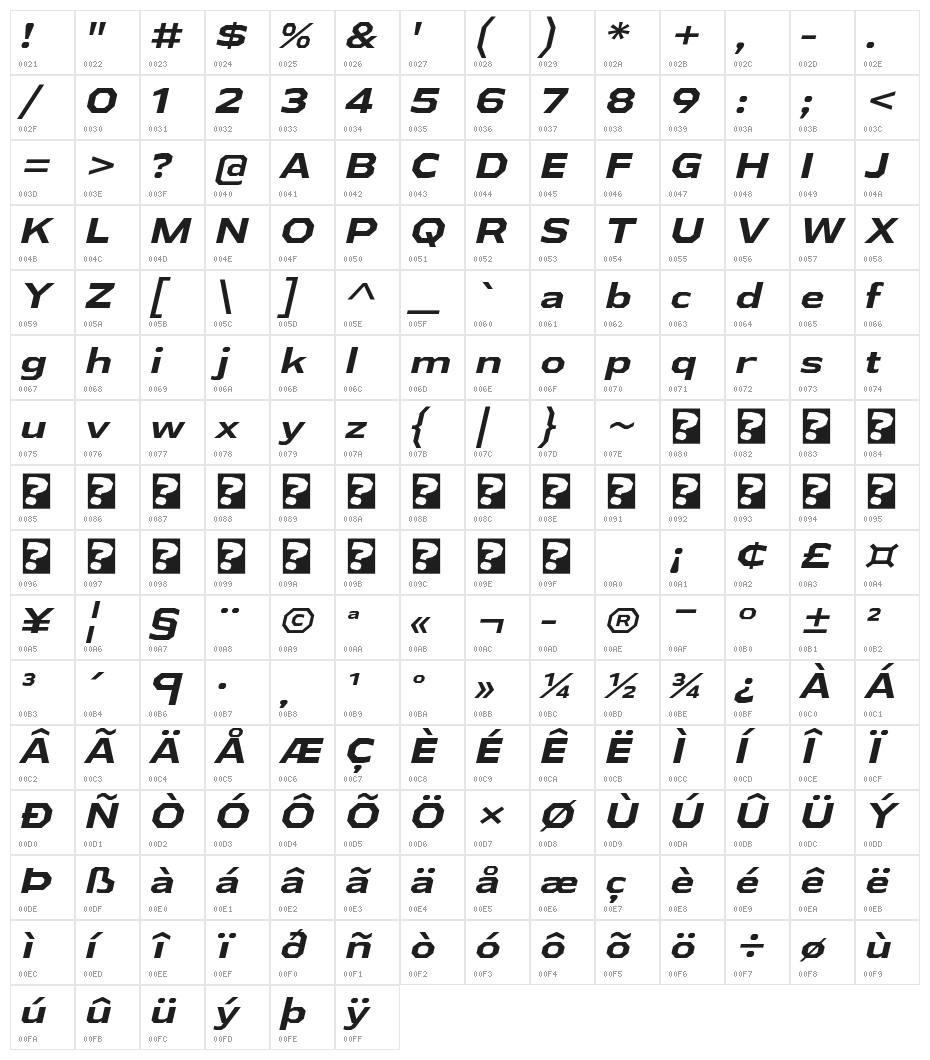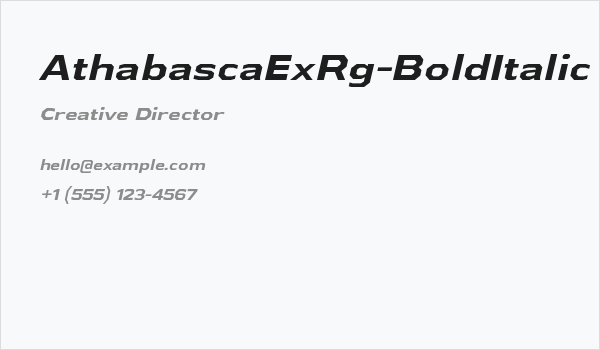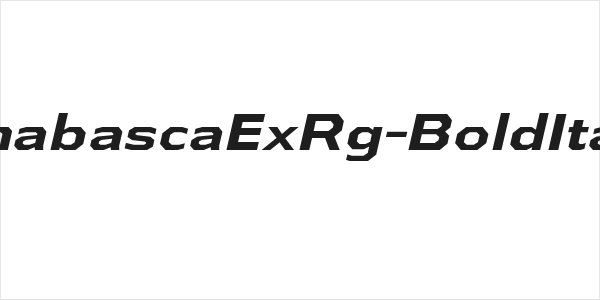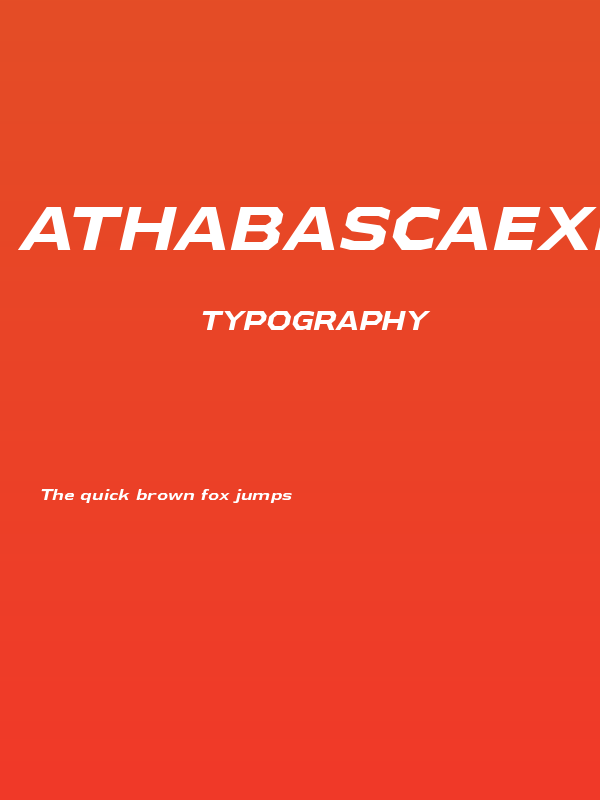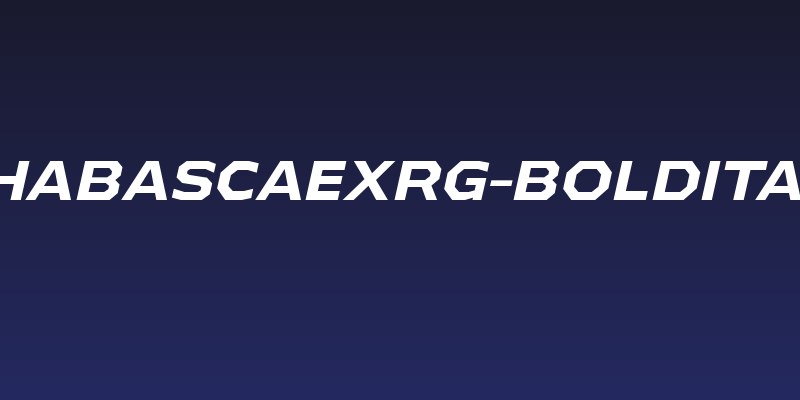
AthabascaExRg-BoldItalic Font
AthabascaExRg-BoldItalic Description
This font features a bold and italicized style with a modern and dynamic appearance. The characters are slightly slanted, giving a sense of motion and energy. The bold weight ensures strong visibility, making it suitable for attention-grabbing headlines. The design includes sharp angles and clean lines, contributing to a contemporary look. The uppercase and lowercase letters maintain a consistent style, while the numerals and special characters are designed to complement the overall aesthetic. The font's structure is robust, making it versatile for various design applications.
Proposed ProjectsIdeal for sports branding, dynamic posters, and modern advertising campaigns.